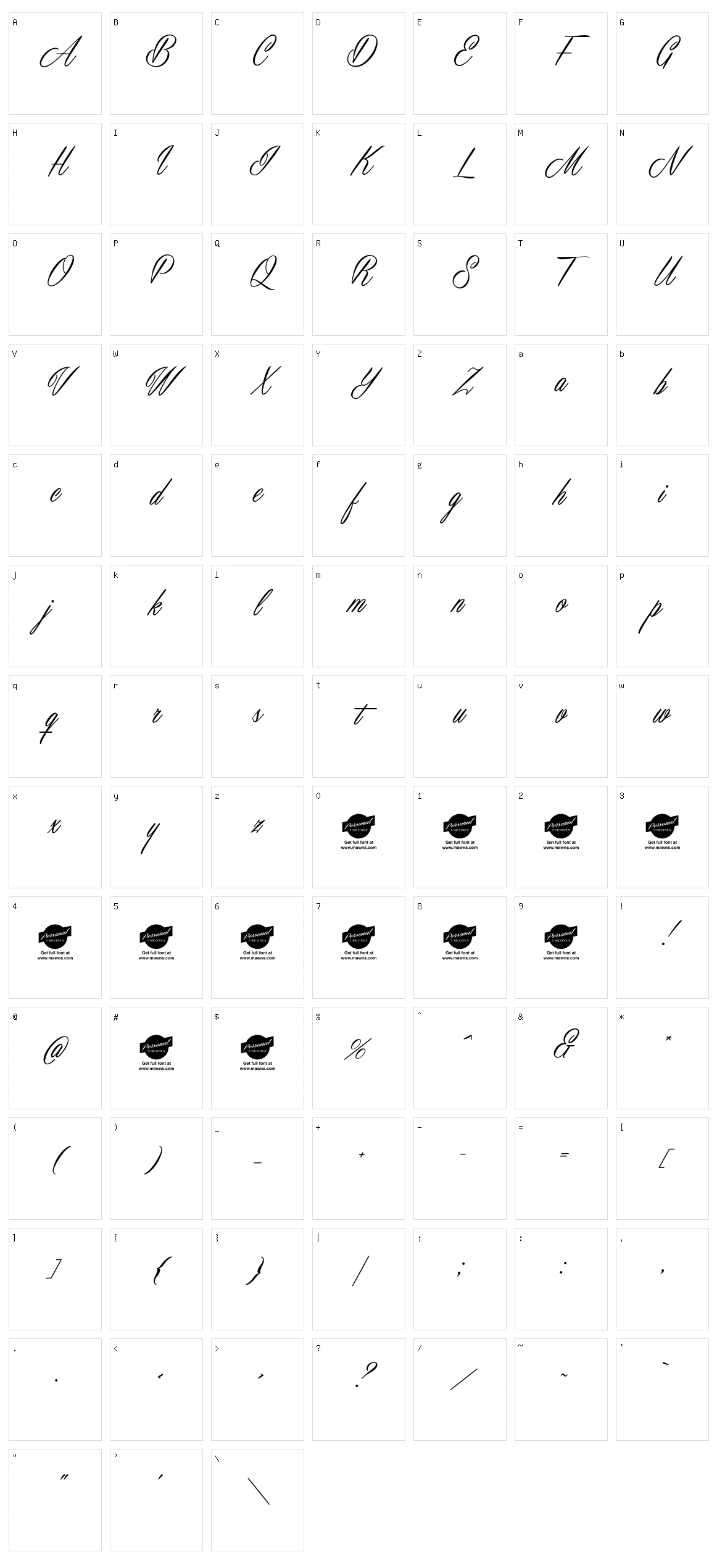
The free font Masterics is carefully designed by Mans Greback, showcasing a thoughtful balance of creativity and usability and falls under the Script font style. When you download the ZIP file, it contains only 280.76 KB of font files, making it lightweight and quick to download. Please review the license details below to understand permitted usage and distribution rights. If license information is not available, we recommend using this font for personal projects only or contacting the author directly for commercial usage permissions.